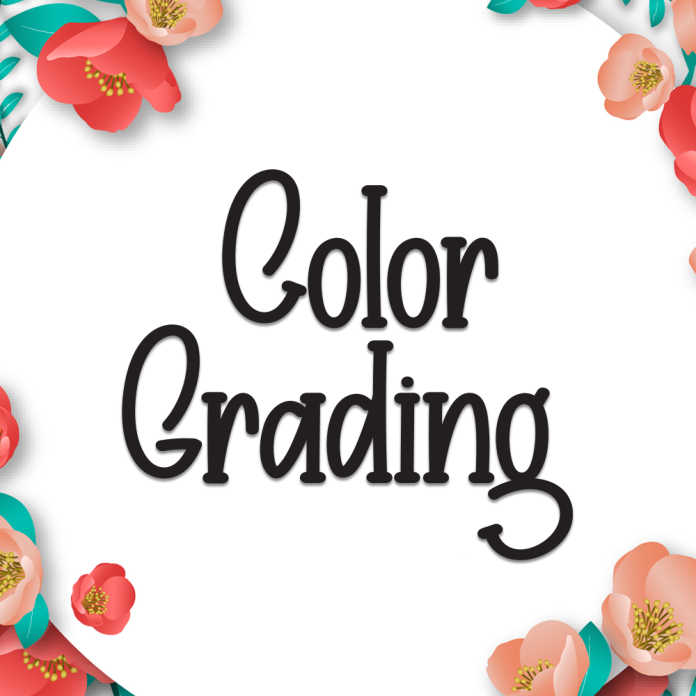
Color Grading is a bold and eye-catching display font designed to add a splash of modern creativity to any project. With its chunky letterforms and strong presence, this font stands out in posters, social media graphics, headlines, and creative branding.
Whether you’re designing for digital content or print media, Color Grading delivers impact with style.
Modern and bold display style
Perfect for titles, headlines, and posters
High visibility and strong character
Add visual punch to your design with the energetic vibe of Color Grading.